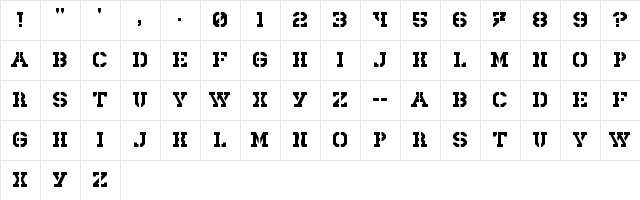
Rick Lobster Regular
| Designer | Andrew McCluskey |
Design Context for Rick Lobster Typeface
Rick Lobster takes a measured approach to typography — its balanced proportions and neutral character make it a reliable workhorse for both digital and print work.